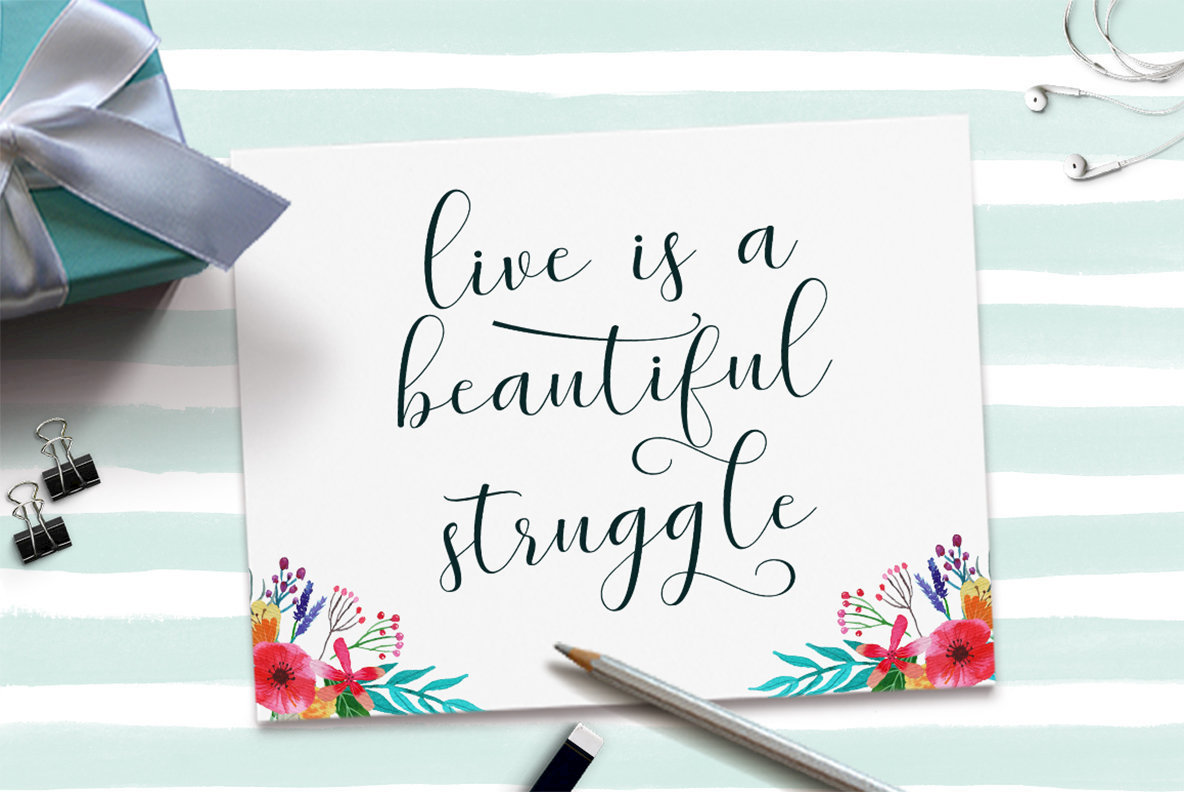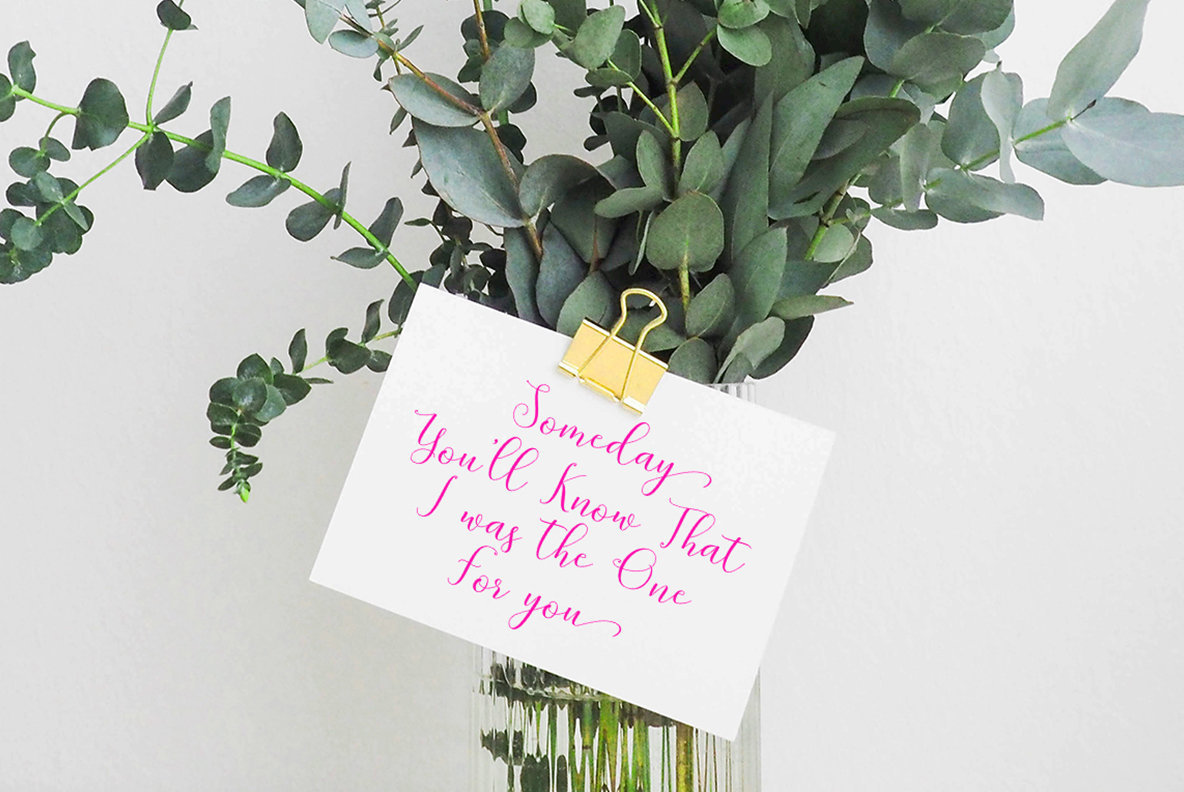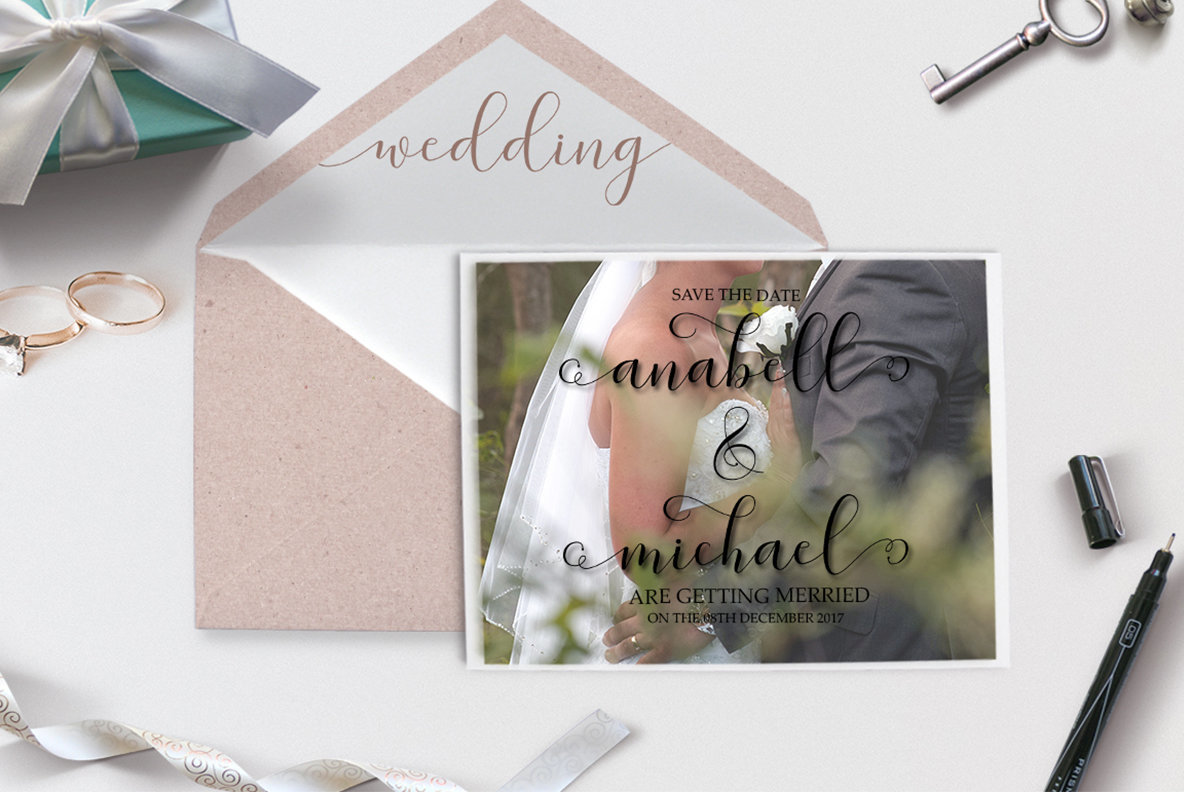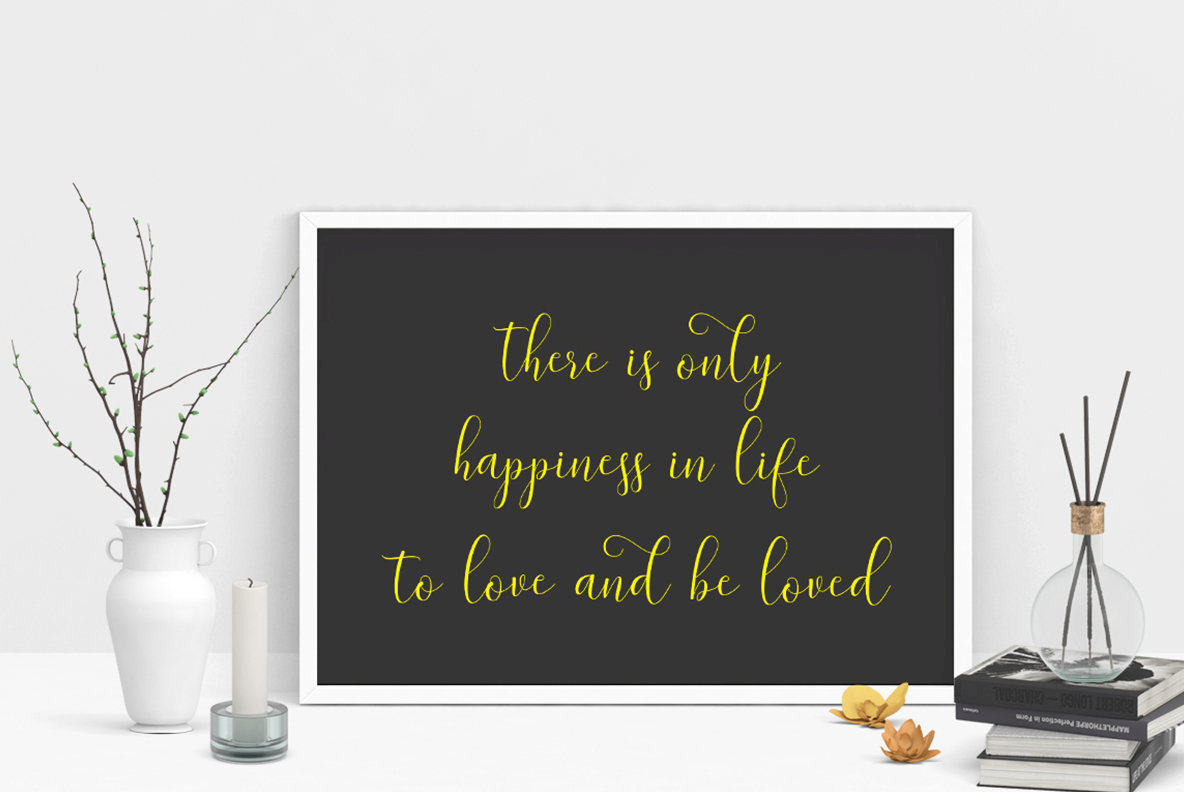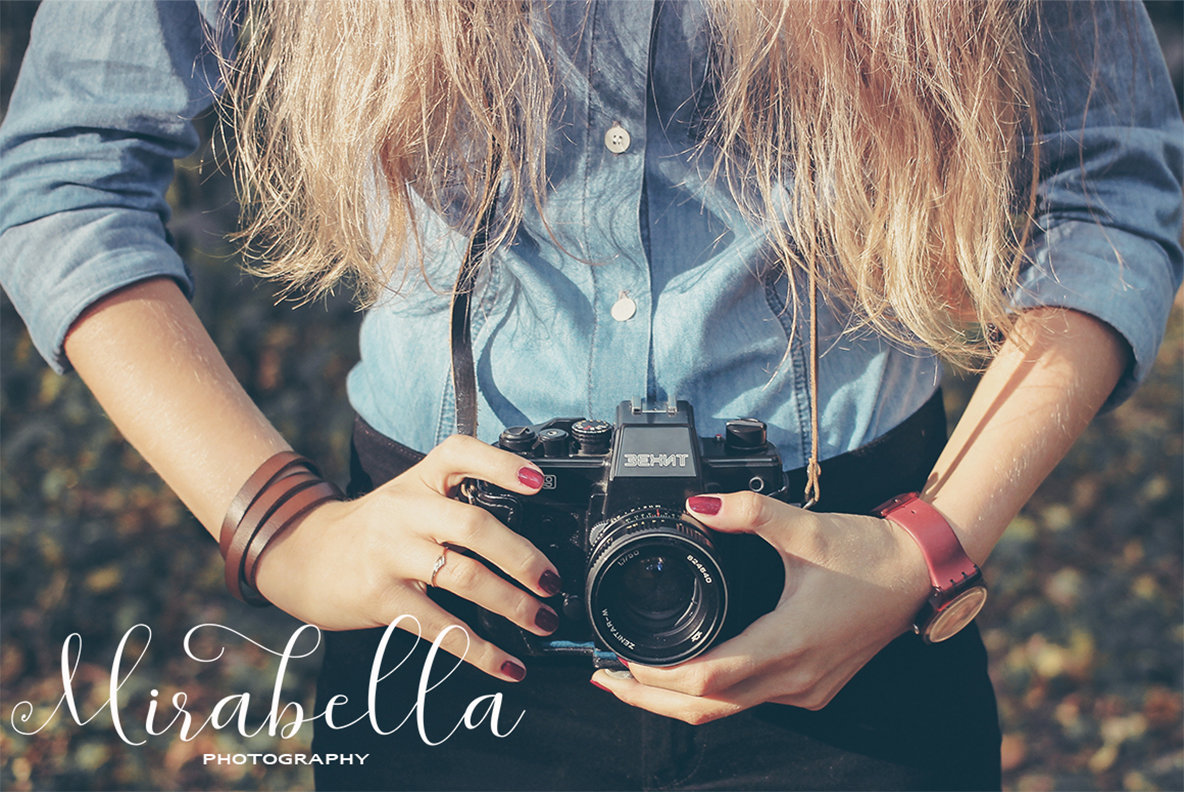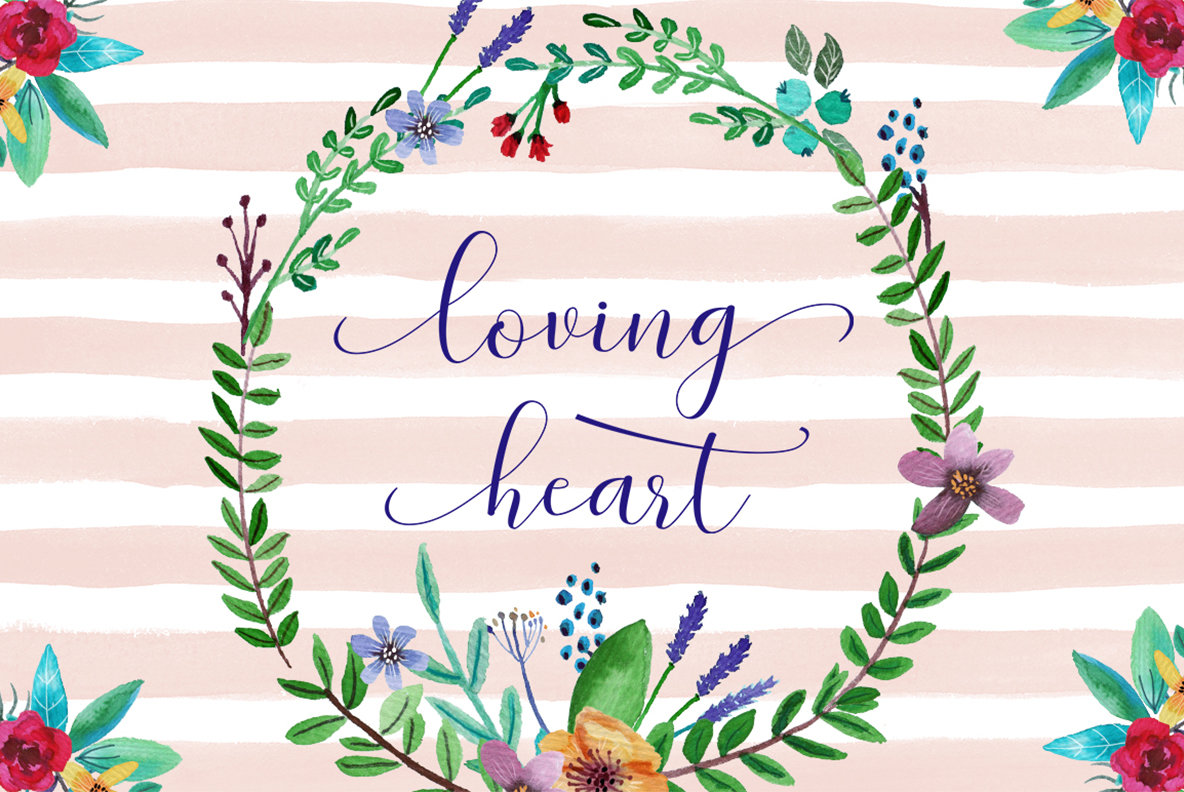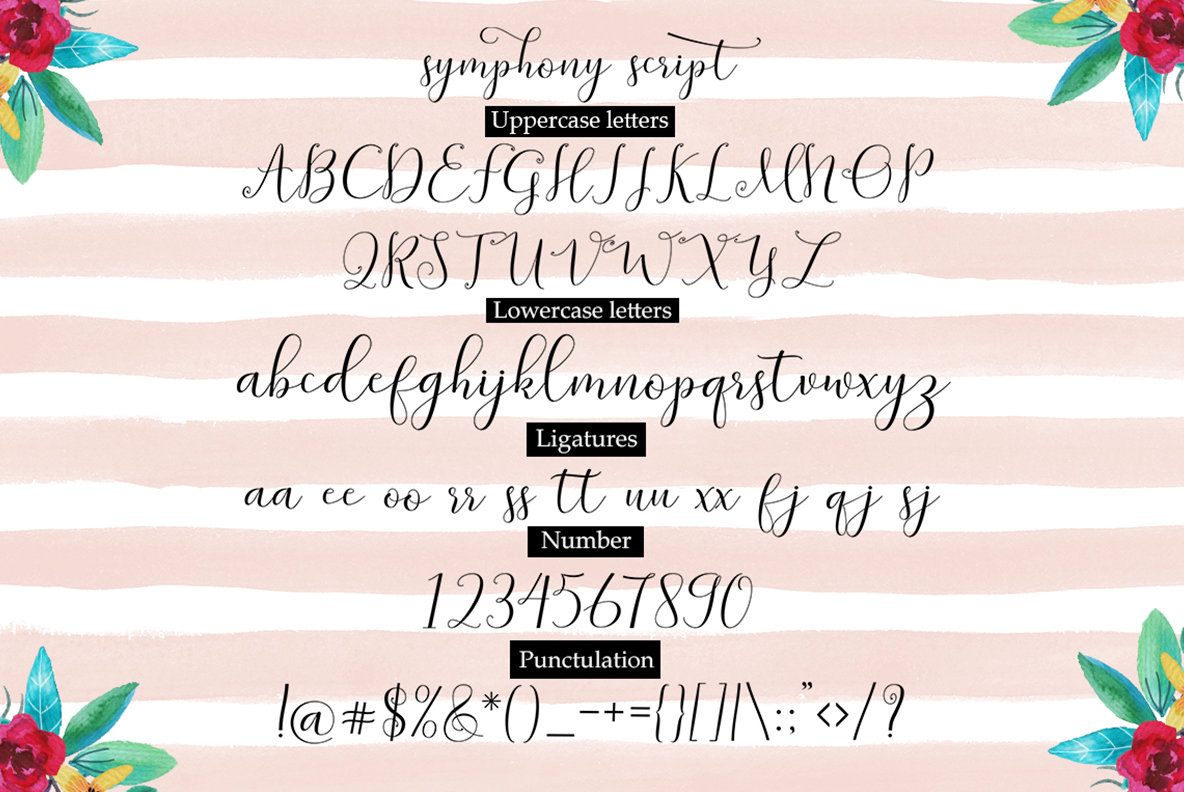
Symphony Font
Symphony
Symphony Script by Great Studio offers the elegance of modern calligraphy, shaped to bring a casual yet polished touch to your designs. This font is ideal for a multitude of applications, including logos, product packaging, wedding invitations, and more. The inherent beauty of swashes and stylistic gentle flourishes make it suitable for branding, headlines, and signature endeavors. Accessing the alternative characters is straightforward for both Mac and Windows users. Programs like Adobe Illustrator CS and Microsoft Word assist in unlocking the full potential of the Symphony Script. Whether you use Font Book on Mac or Character Map on Windows, exploring Symphony's extensive character set can elevate your project seamlessly.Symphony Script: Versatile Calligraphy for Creative Projects